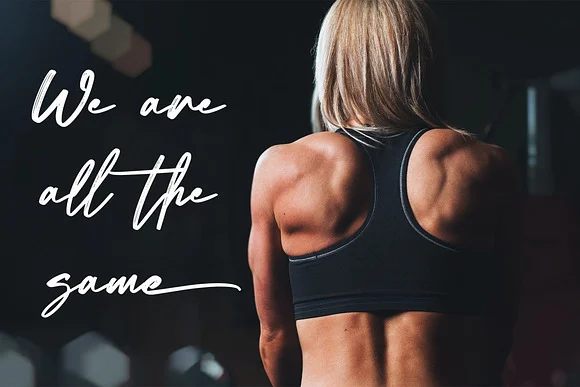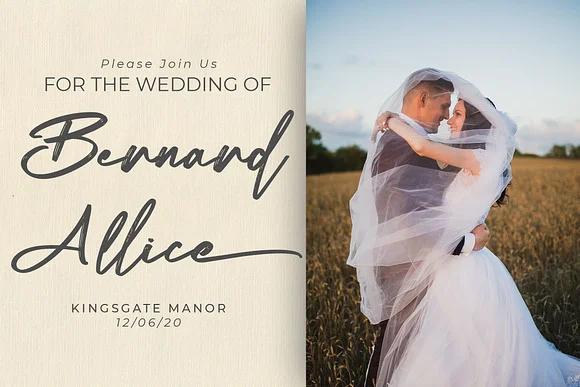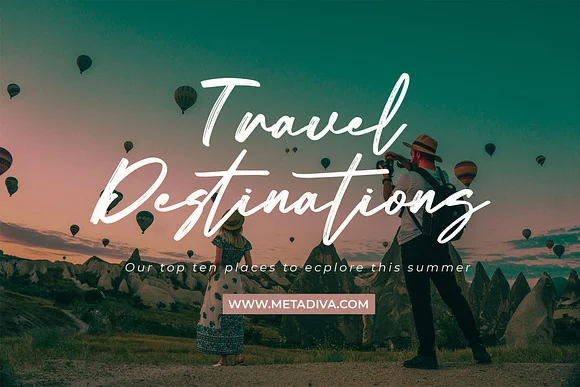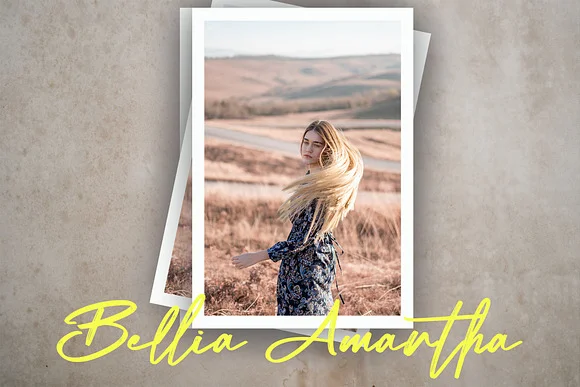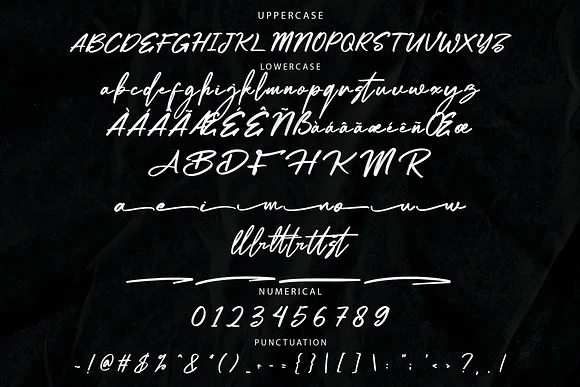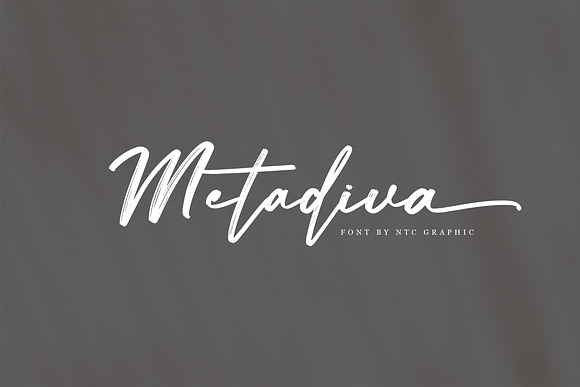
Metadiva Brush Script Font
When a design brief calls for both consistent type colour across continuous text and immediate visual impact, type choices matter — Metadiva Brush Script answers that brief. The typeface brings an elegant, calligraphic sensibility to a broad range of creative disciplines, with visual harmony and precise spacing that holds up whether the work is print-first or screen-first.
In practice, Metadiva Brush Script proves particularly effective for annual reports, boutique logos, wedding invitations, logo design, social media graphics. Designers reaching for it find that the type decisions feel resolved rather than laboured — a useful quality when client timelines are tight.
The range of applications extends to fashion editorials, high-end cosmetic packaging, editorial layouts, poster creation. That breadth is deliberate: the proportions and spacing were stress-tested across a wide range of mock briefs before the typeface was finalised.
Brand strategists building visual languages find Metadiva Brush Script a reliable choice for projects that demand both personality and restraint. The design avoids the self-conscious quirkiness that dates quickly, settling instead for considered distinctiveness that holds up over time.